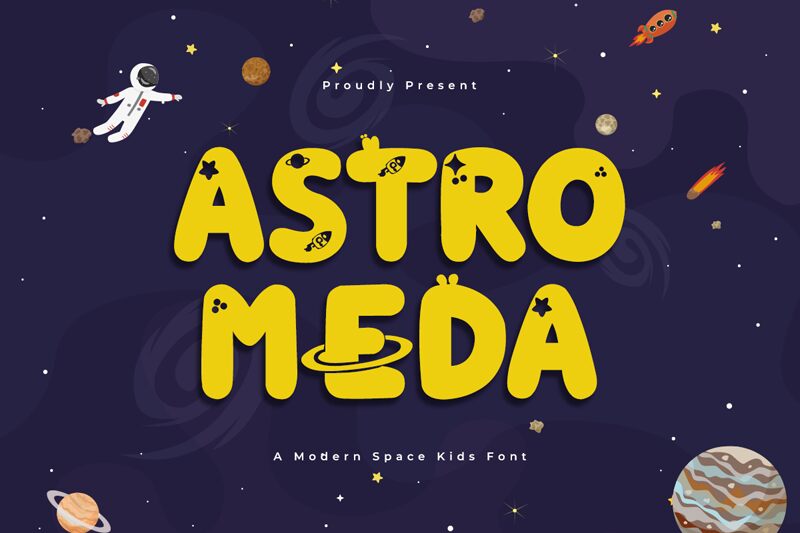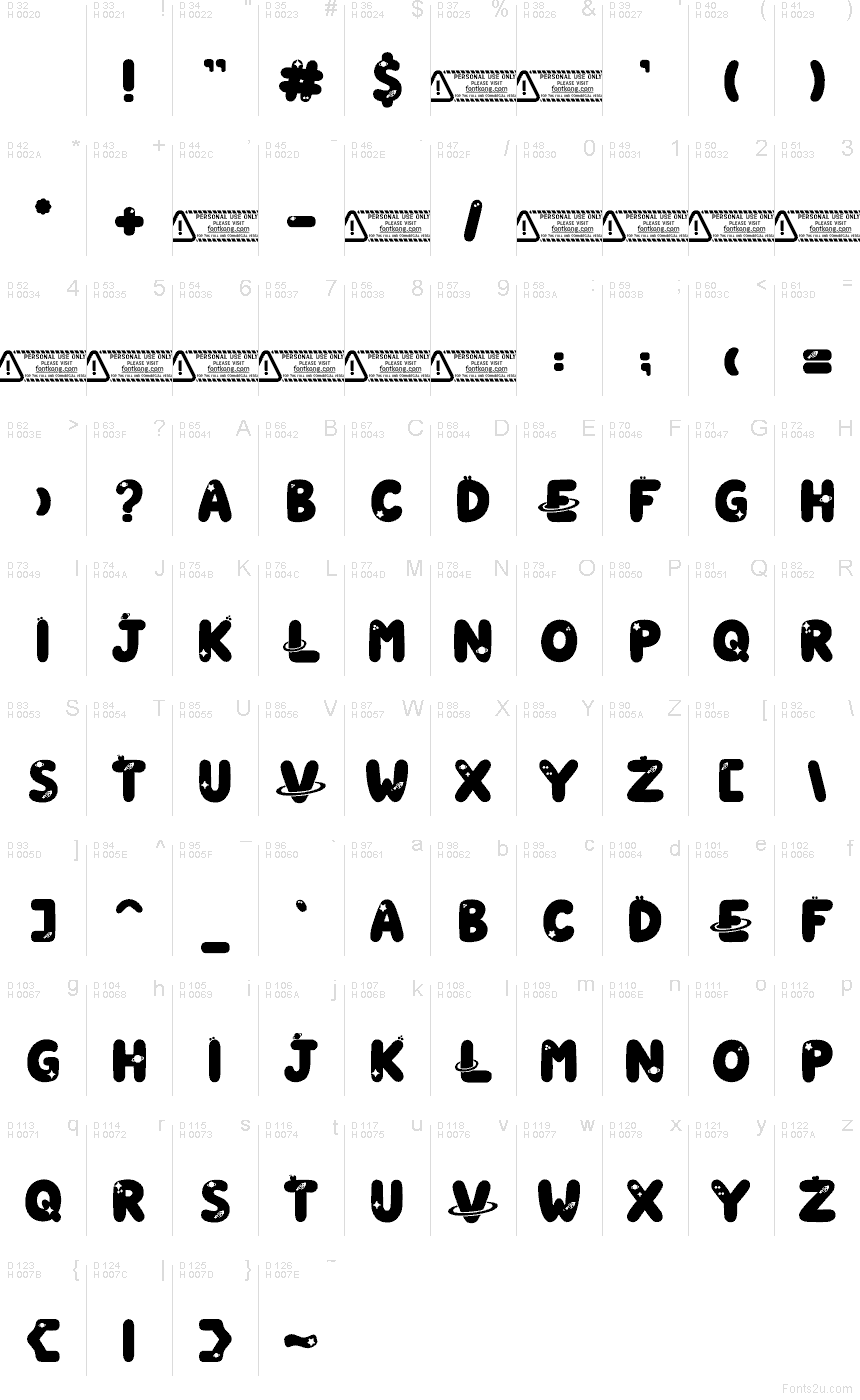
Astromeda font by Kong Font is a free decorative display typeface that looks like it was doodled in zero gravity. Chunky, rounded letters are packed with tiny stars, planets, rockets, and swirling rings, giving every word a bouncy, storybook energy. The solid, inky shapes feel soft and squishy, but still read clearly from a distance, so your cosmic theme comes through instantly without getting cluttered.